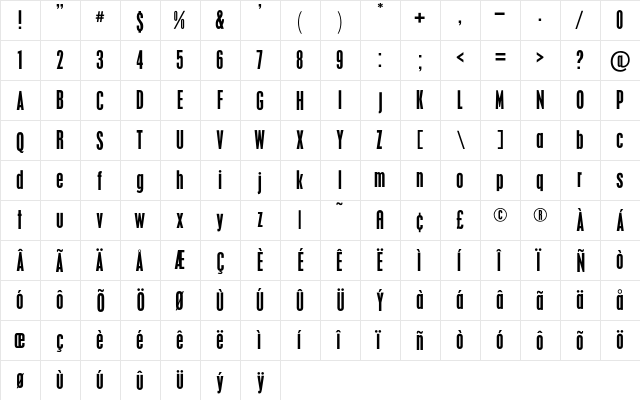
AFCamberwell One
Design Context for AFCamberwell Typeface
AFCamberwell offers clean, dependable letterforms without strong stylistic allegiance, making it a practical choice for designers who need flexibility.
Pro Tip: Pair AFCamberwell with a font of contrasting weight or personality to build a more expressive typographic hierarchy.